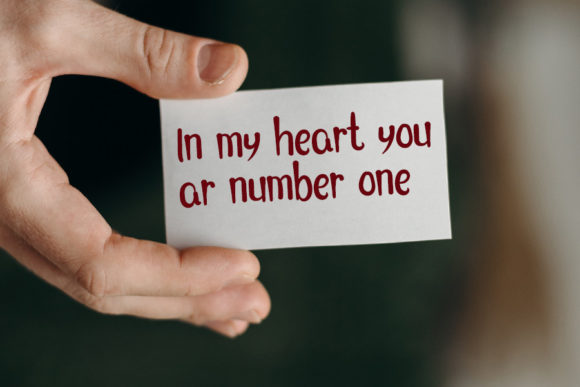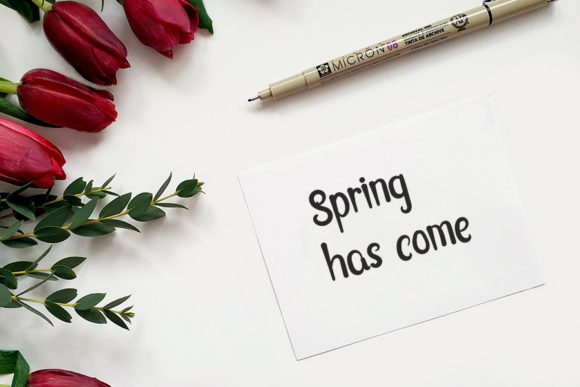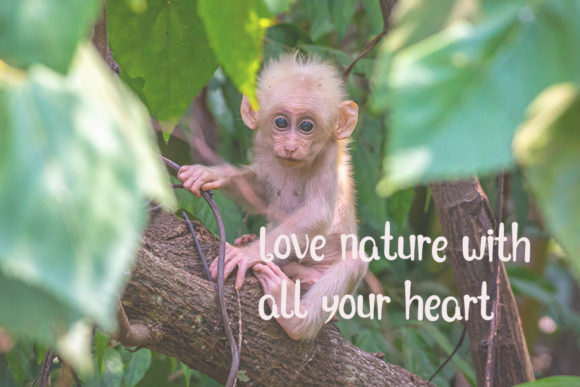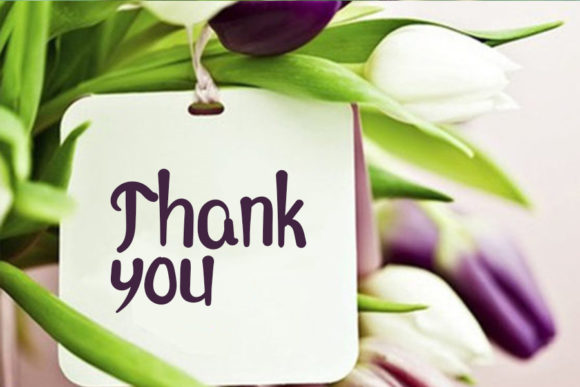
Heart Choice Font
About Heart Choice Font
Heart Choice is a beautiful and versatile handwritten font with a unique feel and a stunning impact. It will add a lovely spark to any design or creative project you have coming up.